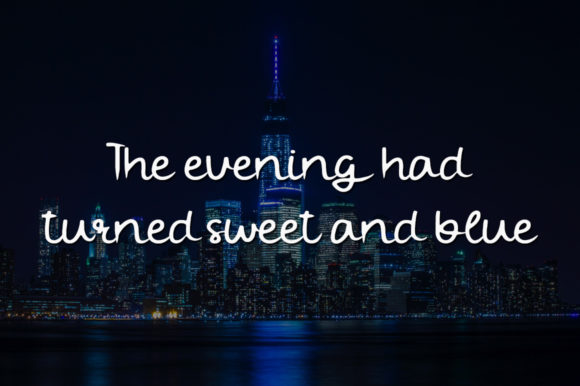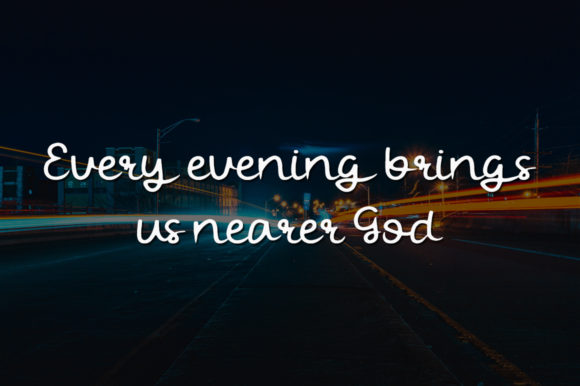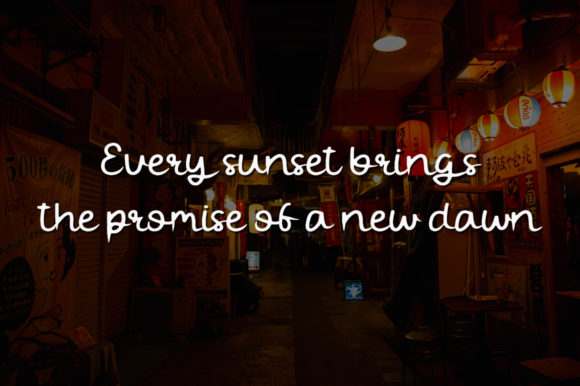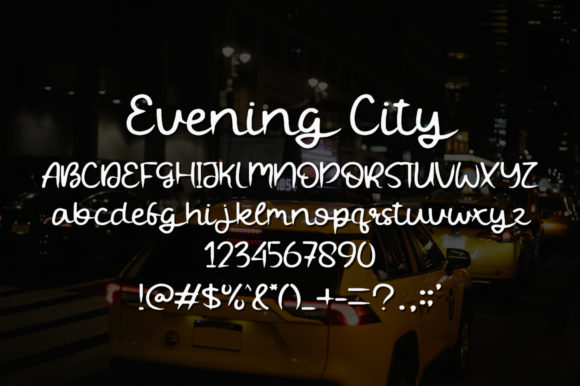
Evening City Font
About Evening City Font
Evening City is a relaxed and cursive handwritten font. Its distinct and well rounded letters make this font a masterpiece. Fall in love with its incredibly versatile style and use it to create spectacular designs!